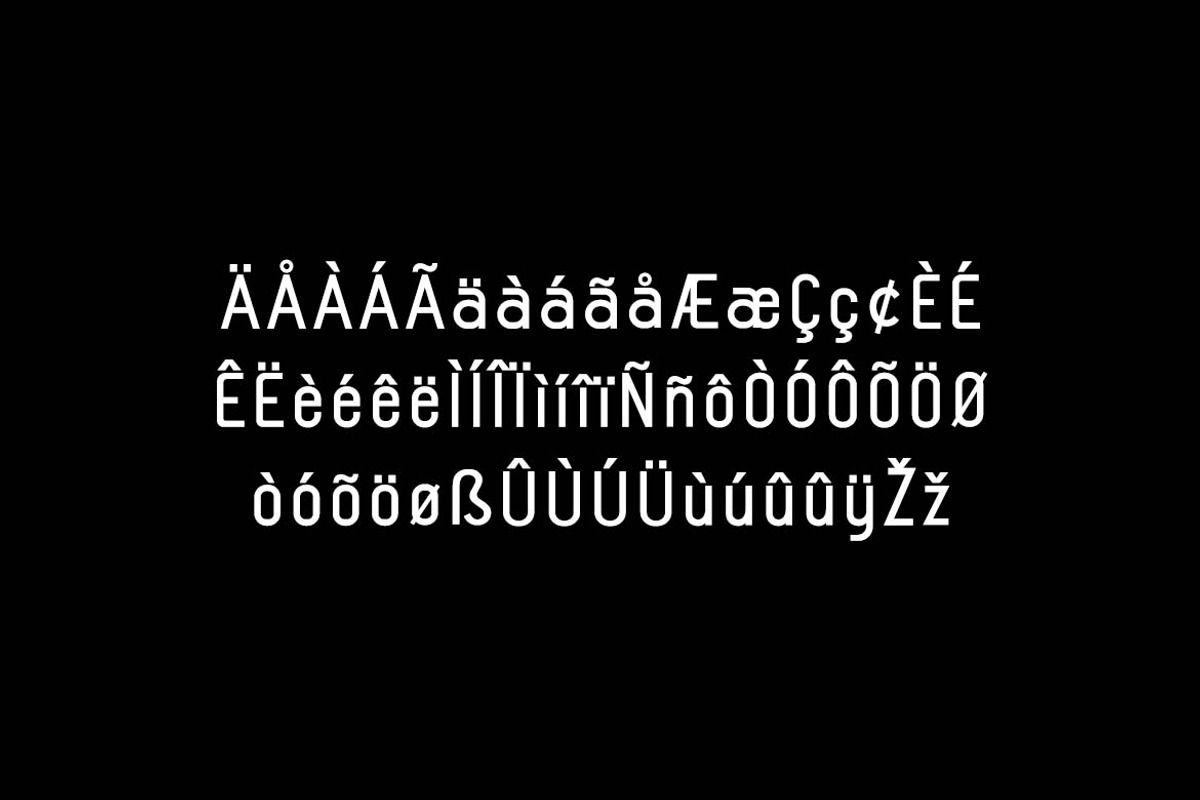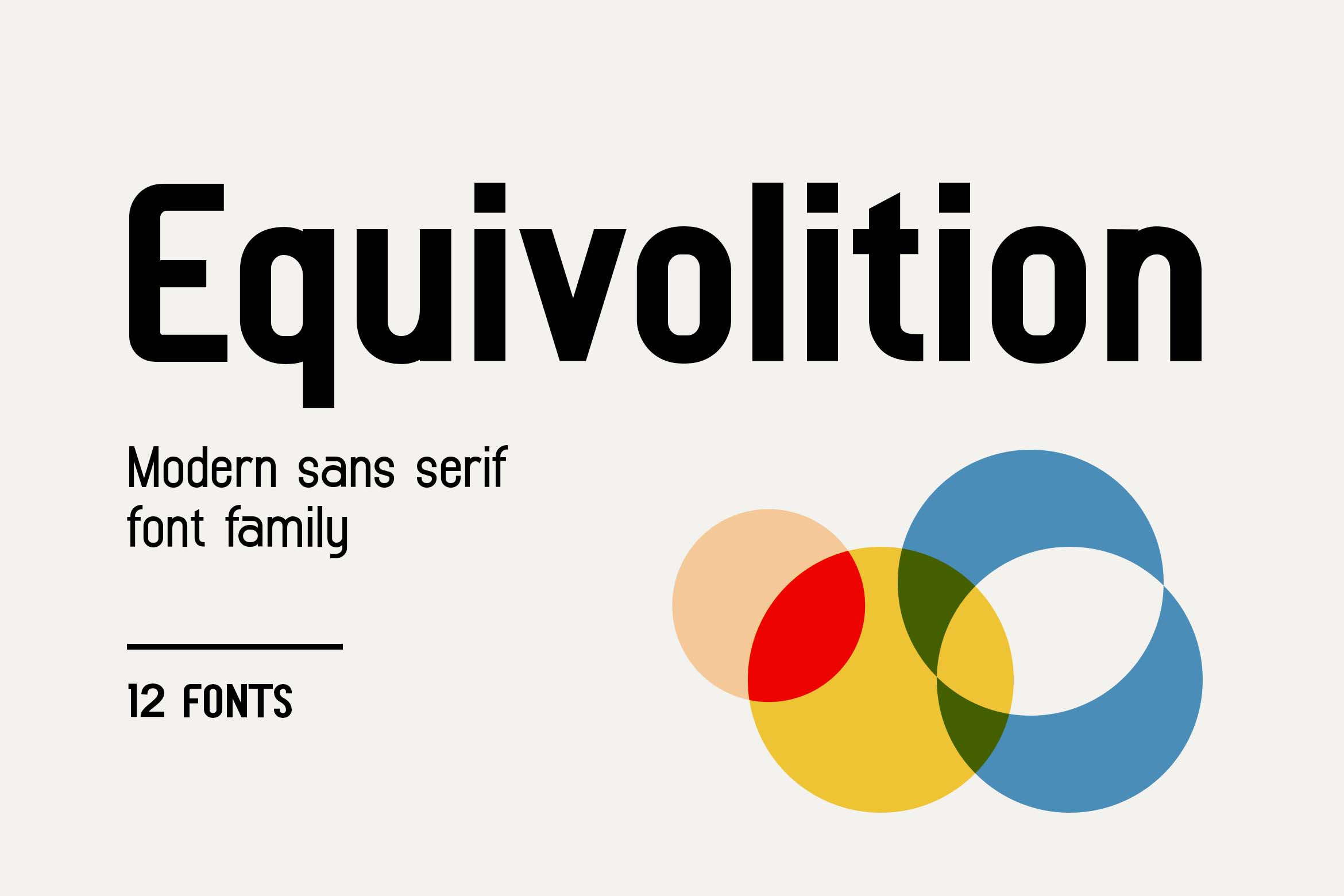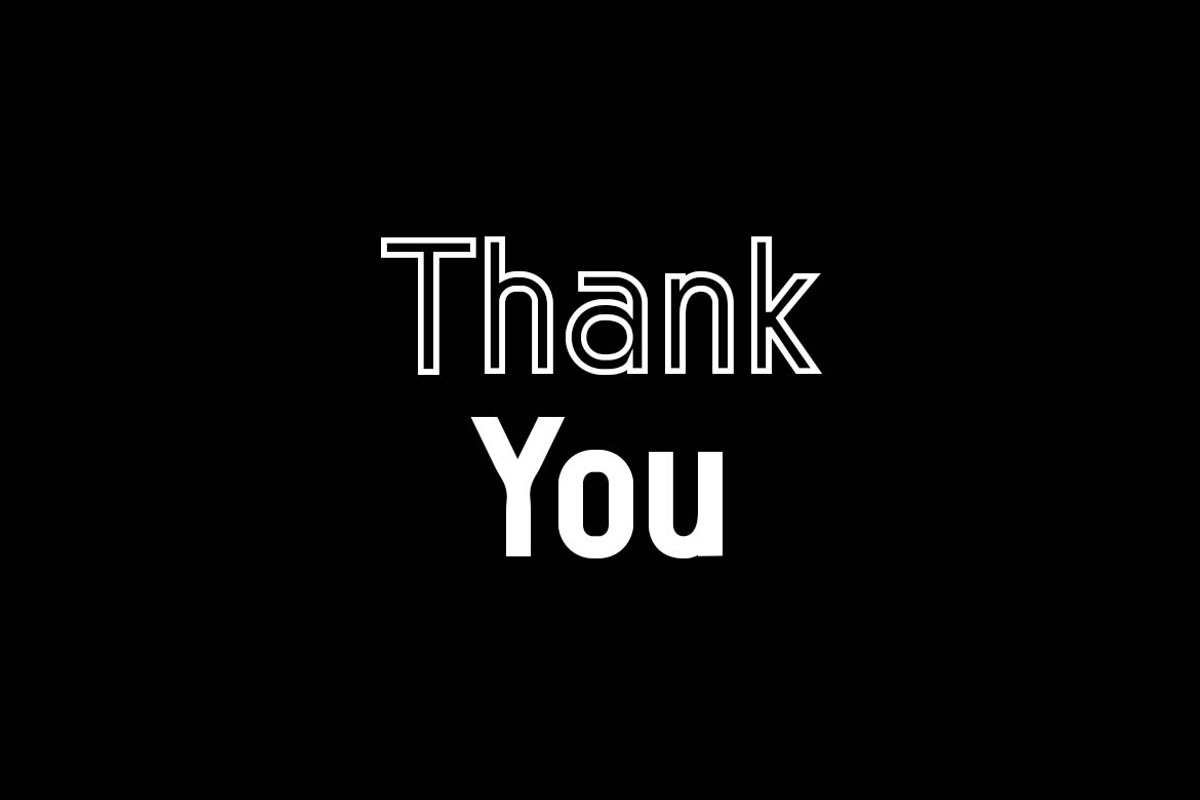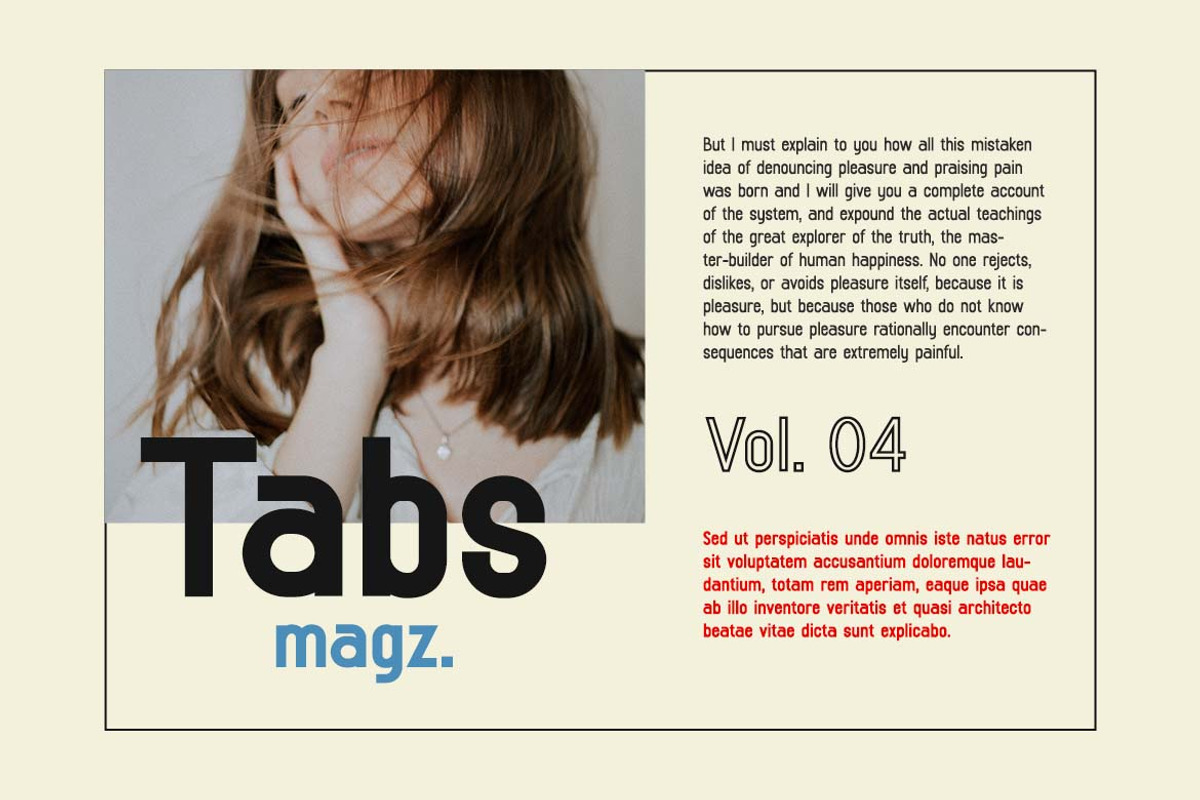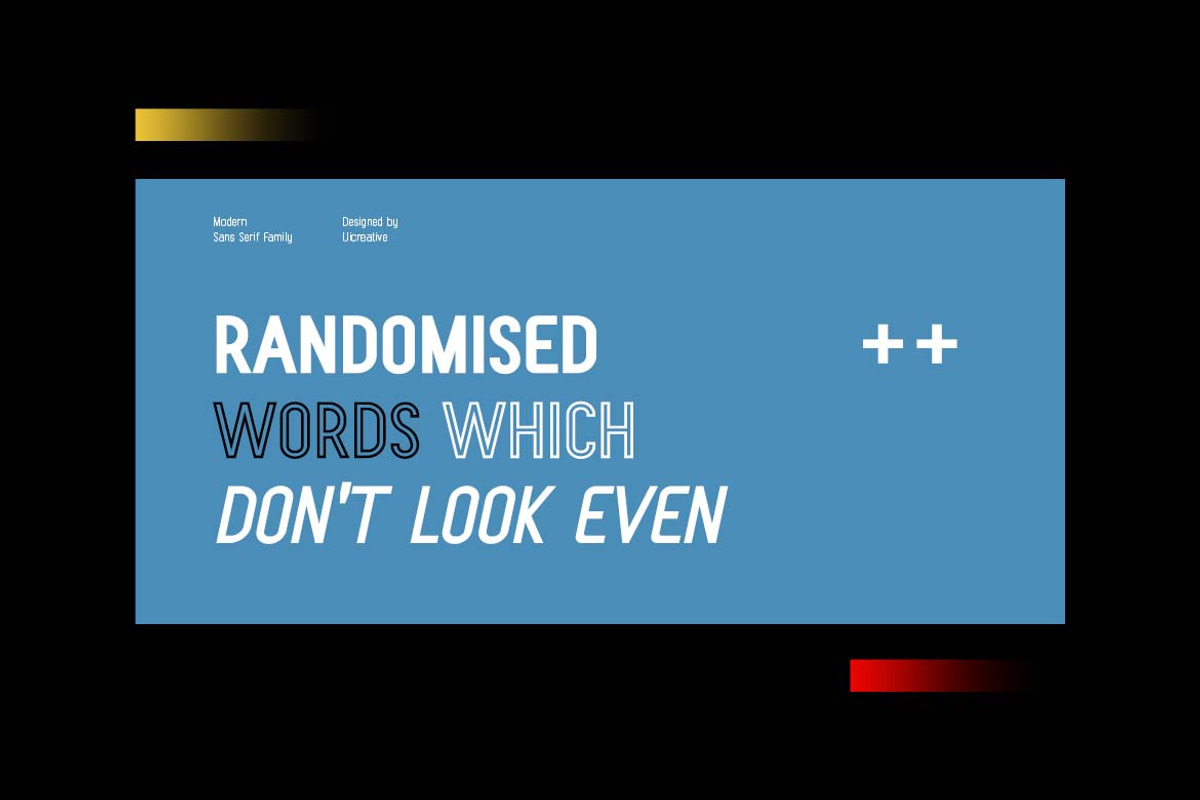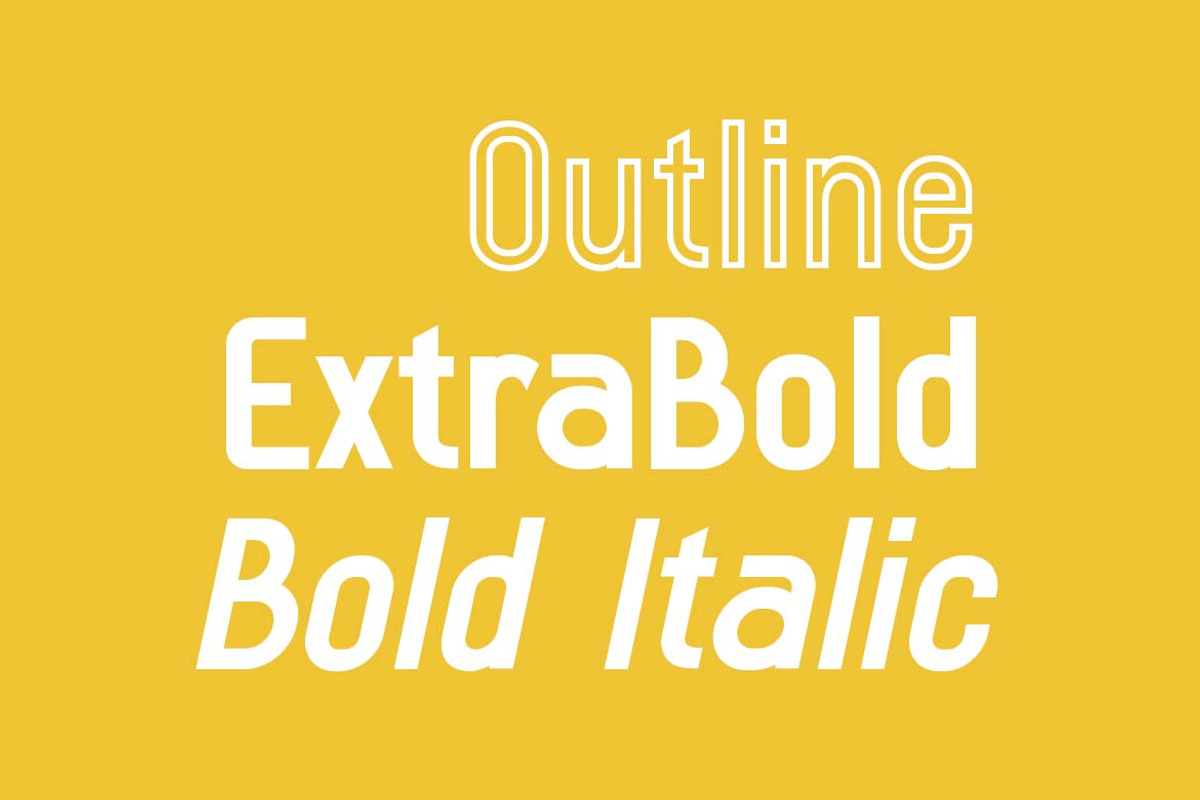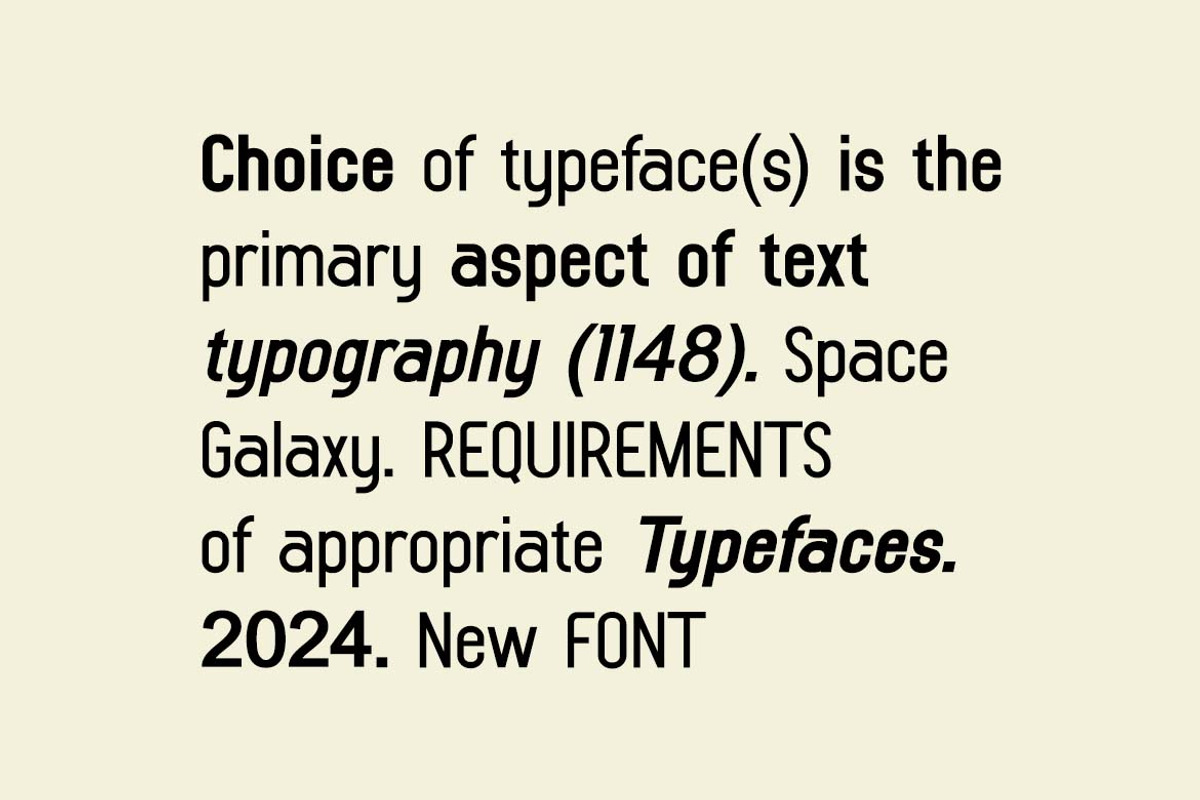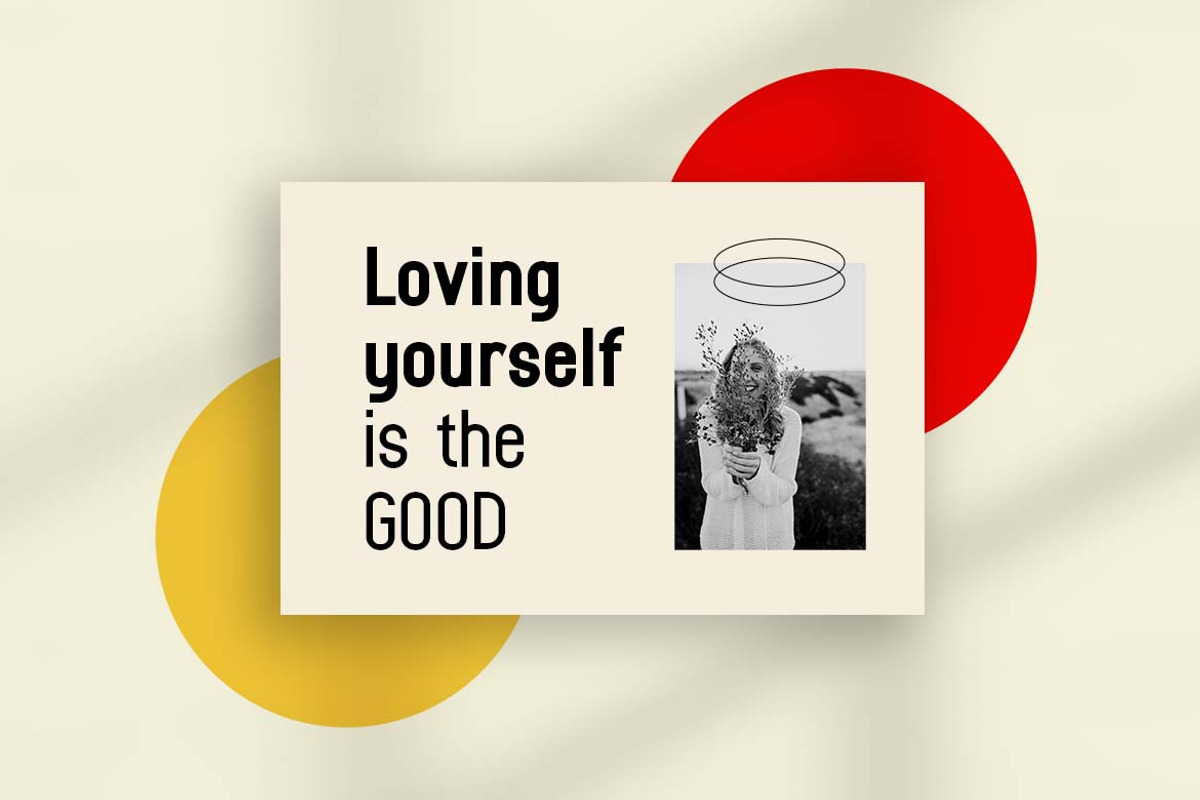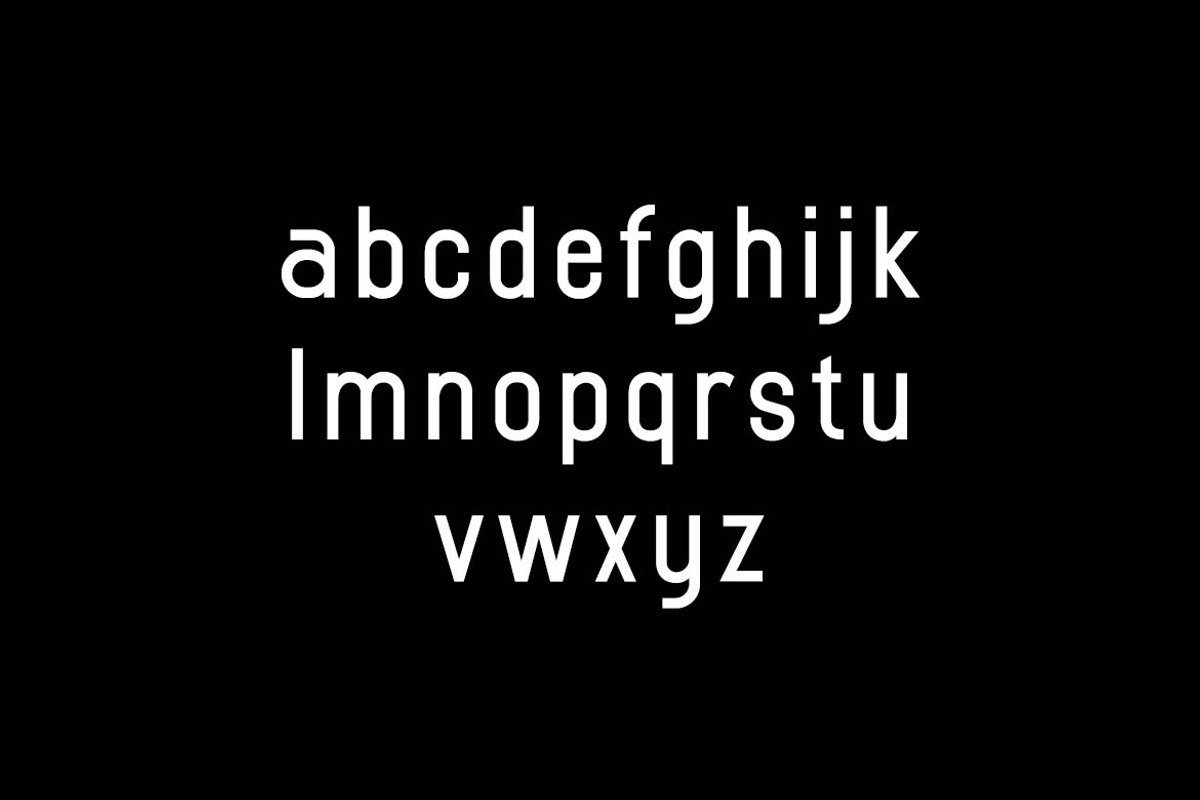
Equivolition Retro Sans Serif Font
Equivolition Retro Sans Serif Font Family . The modern display font feels beautiful classy, elegant, and stylish. This font is ideally suited for a wide variety of projects, such as signature, stationery, logo, wedding, typography quotes, magazine or book covers, website headers, branding, and more. Also, fashion-related branding or editorial design displays both masculine and feminine qualities.